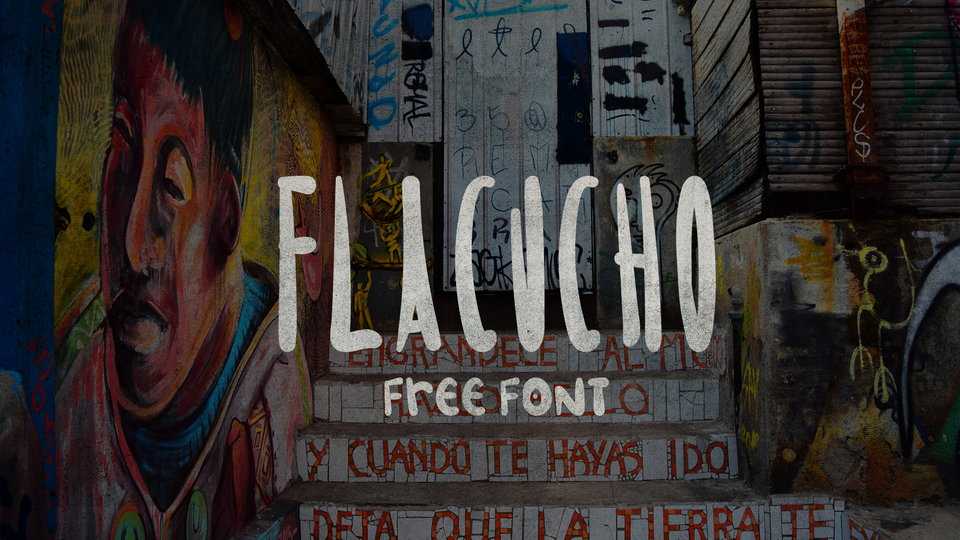
Download Flacucho font, a bold hand painted typeface inspired by lettering on the streets of Chile. Flacucho is perfect for graffiti designs, eye-catching posters, titles and other display uses.
Designer: Gonzalo Gallardo